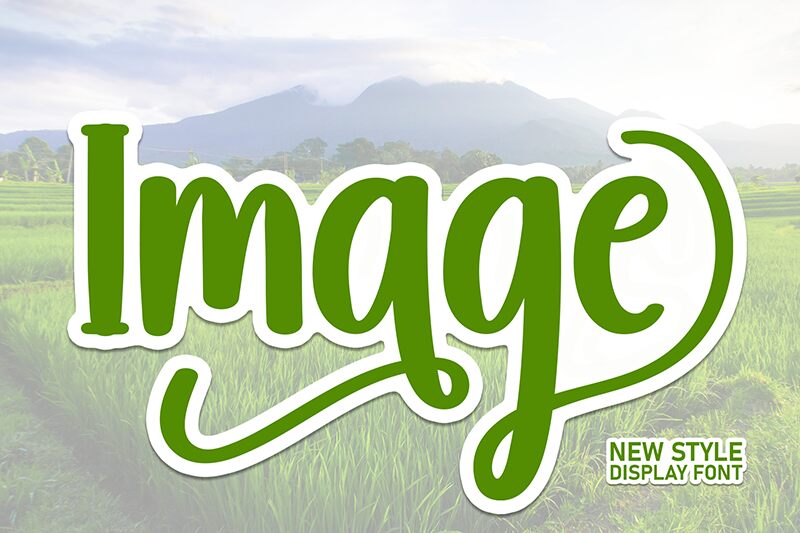
Image
Image font by Andi Moz is a condensed brush typeface that brings casual handwritten elements to life. This friendly and approachable font features smooth lines, making combining stylish typography with everyday texts effortless. It’s an excellent choice for youthful target audiences and contemporary applications in branding and social media.
This free handwritten font is perfect for quotes, prints, digital advertisements, business cards, packaging designs, labels, stationery designs, posters, magazines covers/titles/copywriters sections as well as website themes.